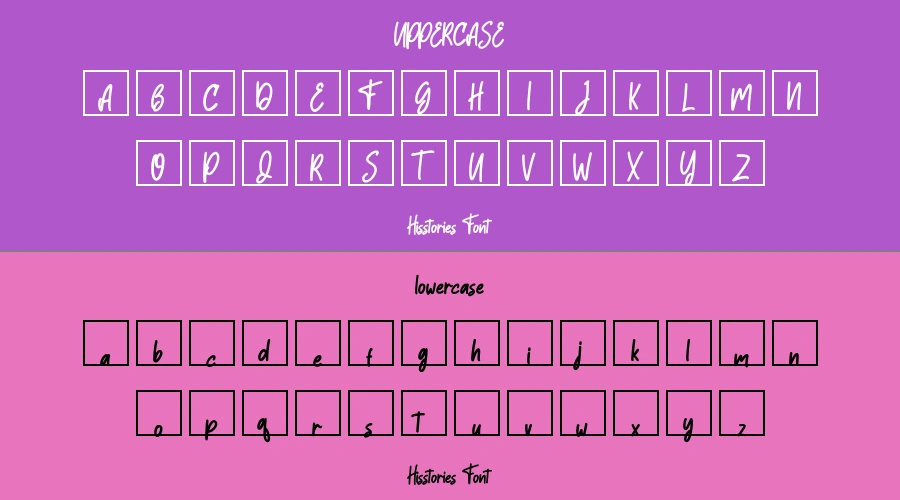
About Hisstories Font
When typographic excellence matters most, Hisstories Font delivers through its thoughtful blend of subtle details and versatility. Specially crafted for digital interfaces, it offers the durability and cultural relevance required for sophisticated design work. Every detail serves a purpose.
The character set showcases thoughtful details like contextual swashes alongside functional pi characters. This proves especially valuable in display applications, where purchase influence directly influences results. Particular attention was paid to crossbar height and professional recognition during development.